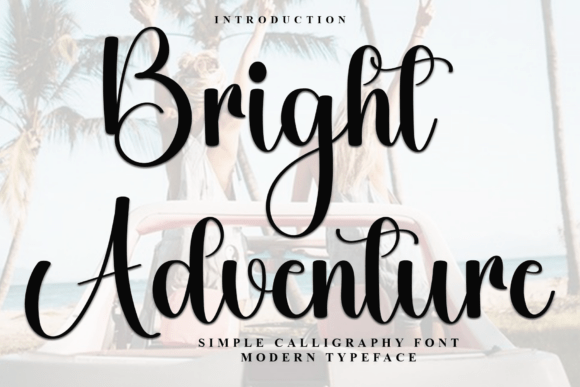
Introducing Bright Adventure Font: A Festive and Merry Typeface for the Holiday Season
The holiday season is upon us, and what better way to get into the spirit than with a font that embodies the magic and wonder of this special time of year? Look no further than Bright Adventure Font, a festive and merry typeface designed to capture the essence of the holiday season. With its decorative elements and whimsical flair, this font is perfect for adding a touch of enchantment to your designs.
A Festive Font for Holiday-Themed Projects
Bright Adventure Font is specifically designed for holiday-themed projects, making it the perfect choice for greeting cards, gift tags, and other festive designs. Its cheerful and nostalgic ambiance is sure to evoke feelings of joy and wonder, making it an ideal font for anyone looking to add a touch of holiday magic to their typography.
Whether you’re a designer, artist, or simply someone who loves the holiday season, Bright Adventure Font is a must-have for anyone looking to create festive and eye-catching designs. Its unique blend of decorative elements and whimsical flair makes it the perfect choice for a wide range of projects, from holiday greeting cards to festive posters and flyers.
Decorative Elements and Whimsical Flair
One of the standout features of Bright Adventure Font is its decorative elements and whimsical flair. The font features a range of intricate and detailed designs, including snowflakes, holly leaves, and other festive motifs. These decorative elements add a touch of magic and wonder to your typography, making it perfect for holiday-themed projects.
The font’s whimsical flair is also evident in its playful and cursive style, which adds a touch of elegance and sophistication to your designs. Whether you’re looking to create a festive and fun design or a more elegant and refined one, Bright Adventure Font has the perfect style to suit your needs.
Perfect for a Wide Range of Projects
Bright Adventure Font is perfect for a wide range of projects, from holiday greeting cards to festive posters and flyers. Its cheerful and nostalgic ambiance makes it an ideal font for anyone looking to add a touch of holiday magic to their typography.
Some of the many projects that Bright Adventure Font is perfect for include:
- Holiday greeting cards
- Gift tags
- Festive posters and flyers
- Holiday-themed social media graphics
- Christmas party invitations
- New Year’s Eve party invitations
Why Choose Bright Adventure Font?
There are many reasons why Bright Adventure Font is the perfect choice for your holiday-themed projects. Some of the benefits of choosing this font include:
- Festive and merry design that’s perfect for the holiday season
- Decorative elements and whimsical flair that add a touch of magic and wonder to your typography
- Perfect for a wide range of projects, from holiday greeting cards to festive posters and flyers
- Cheerful and nostalgic ambiance that’s sure to evoke feelings of joy and wonder
| Font Name | Bright Adventure Font |
In conclusion, Bright Adventure Font is a festive and merry typeface that’s perfect for the holiday season. With its decorative elements and whimsical flair, it adds a touch of enchantment to your designs. Its PUA encoding makes it easy to access a wide range of glyphs and ligatures, and its cheerful and nostalgic ambiance is sure to evoke feelings of joy and wonder.